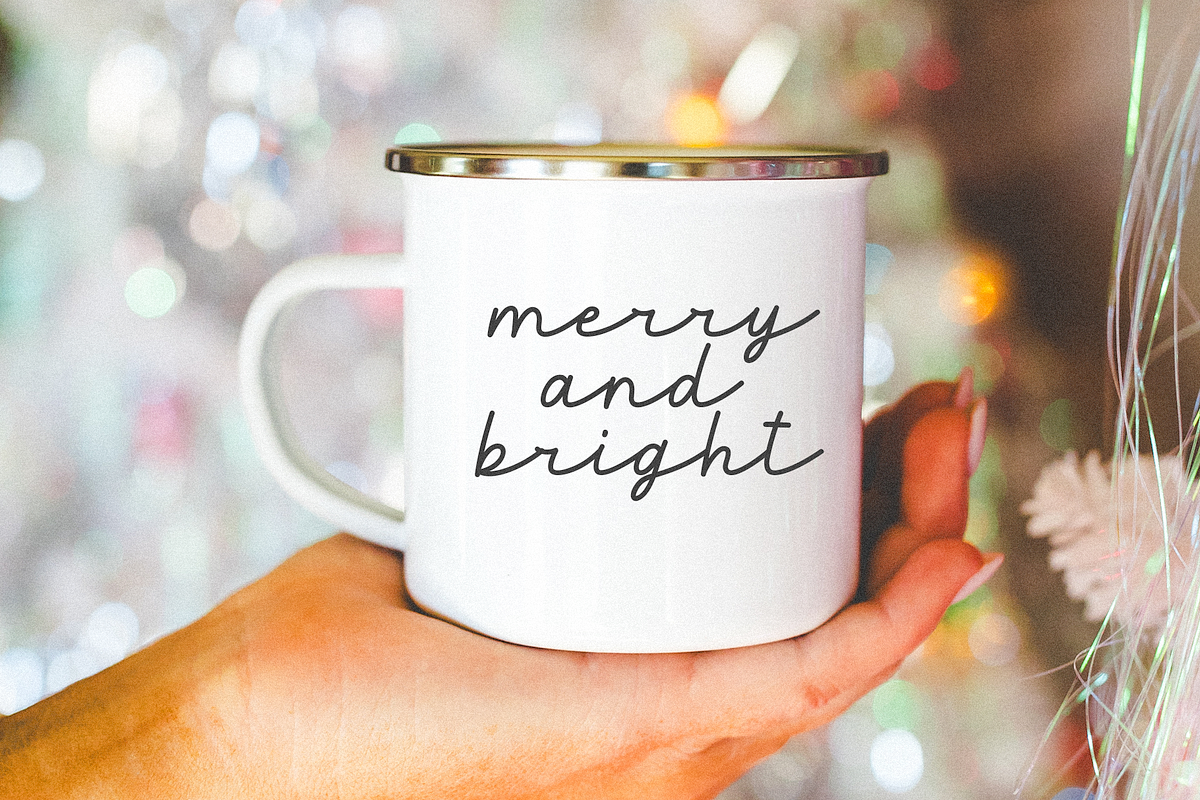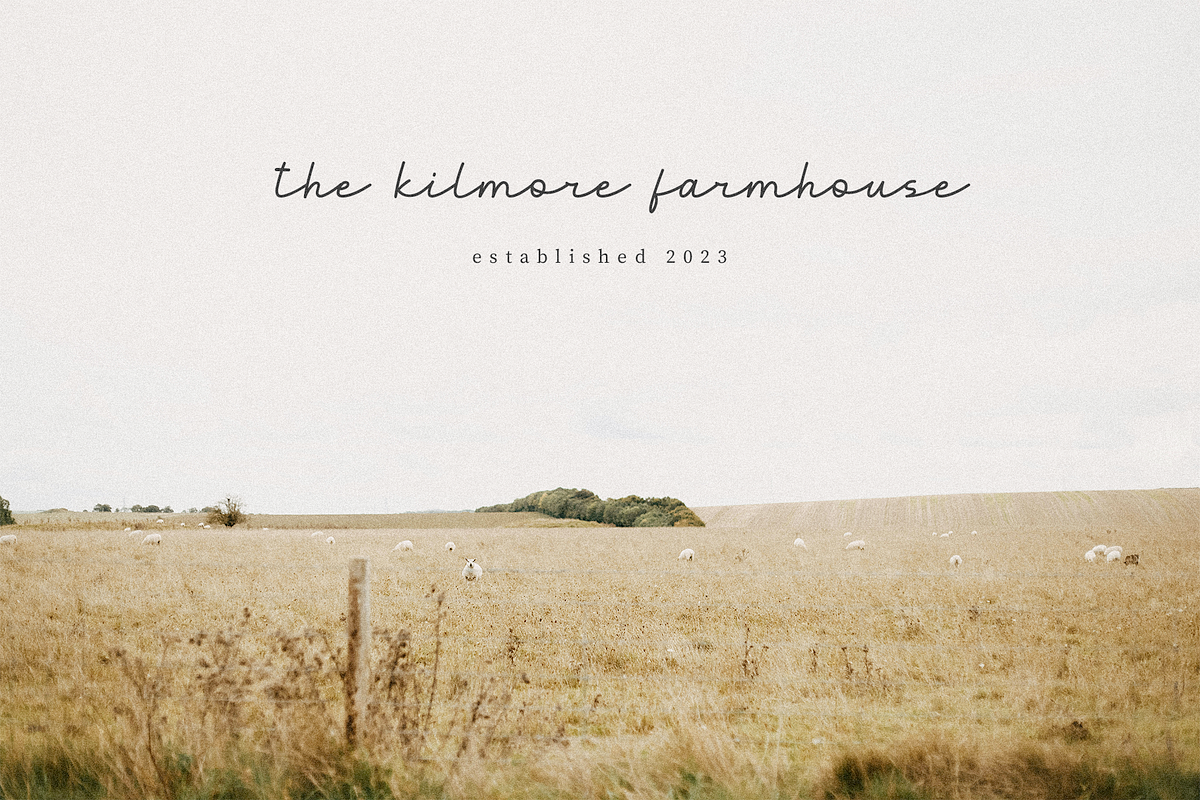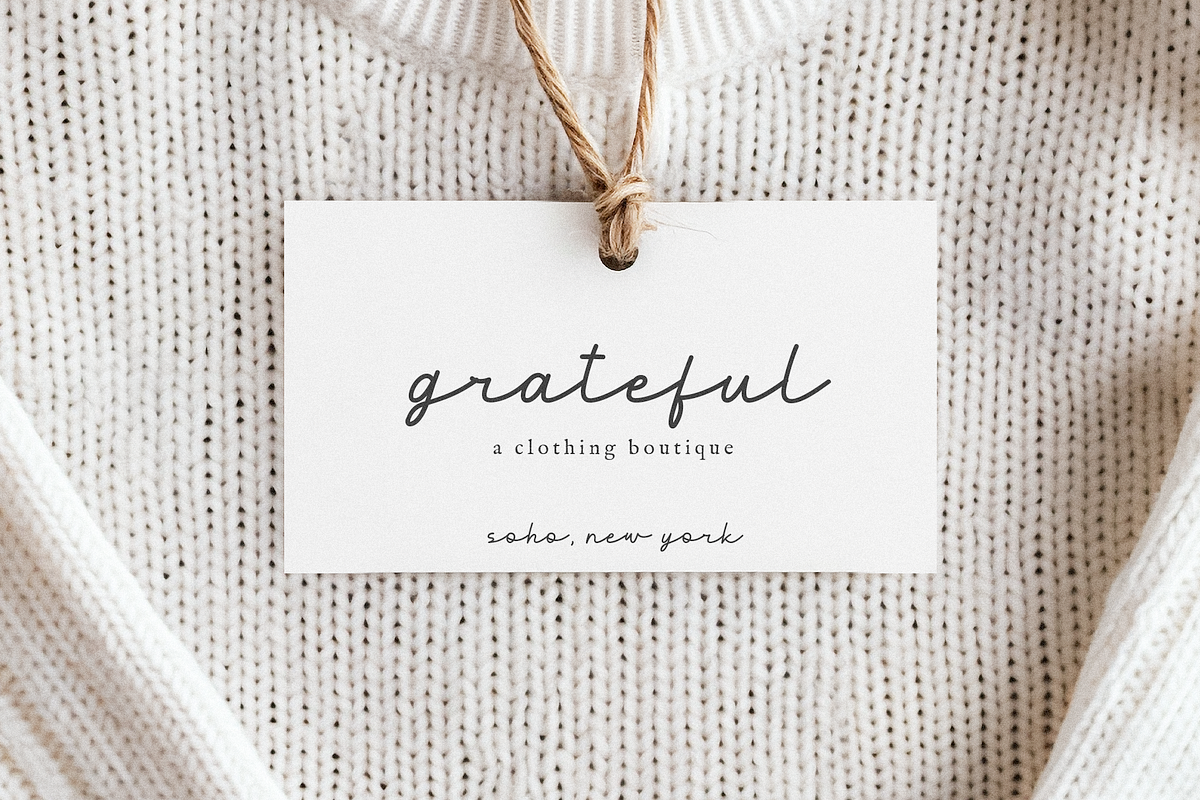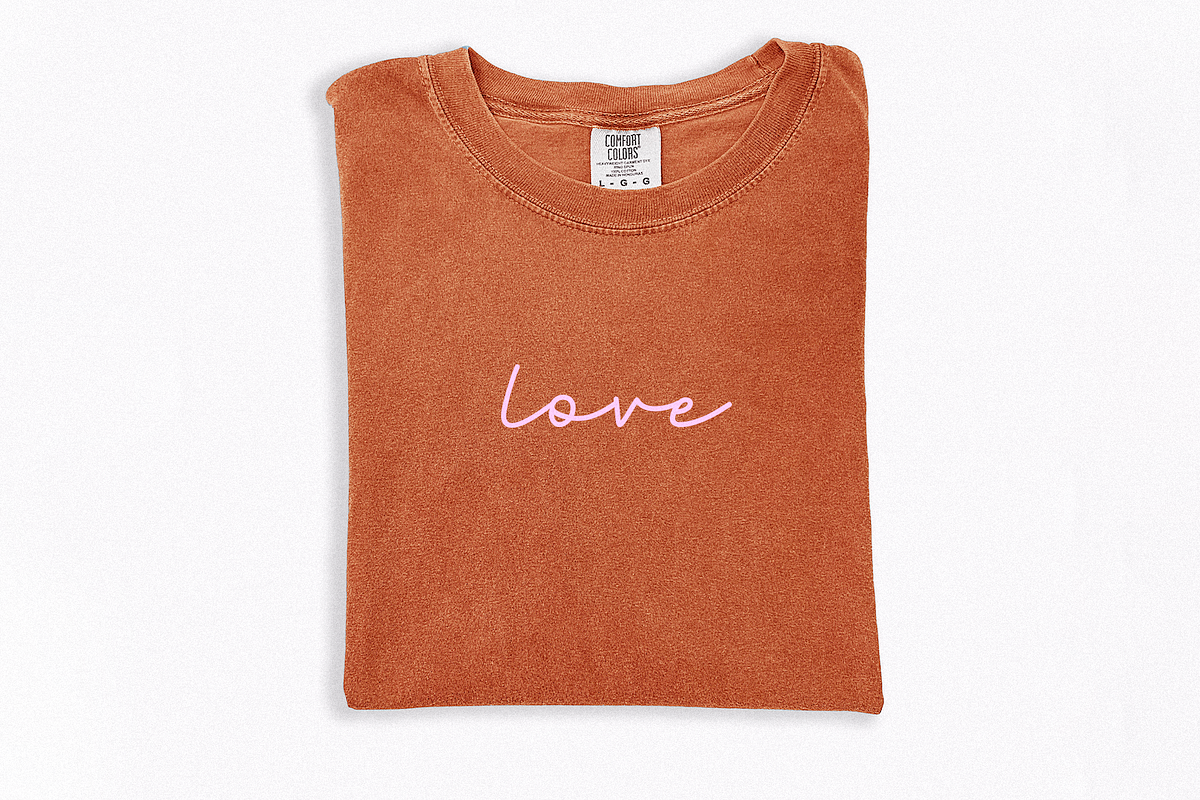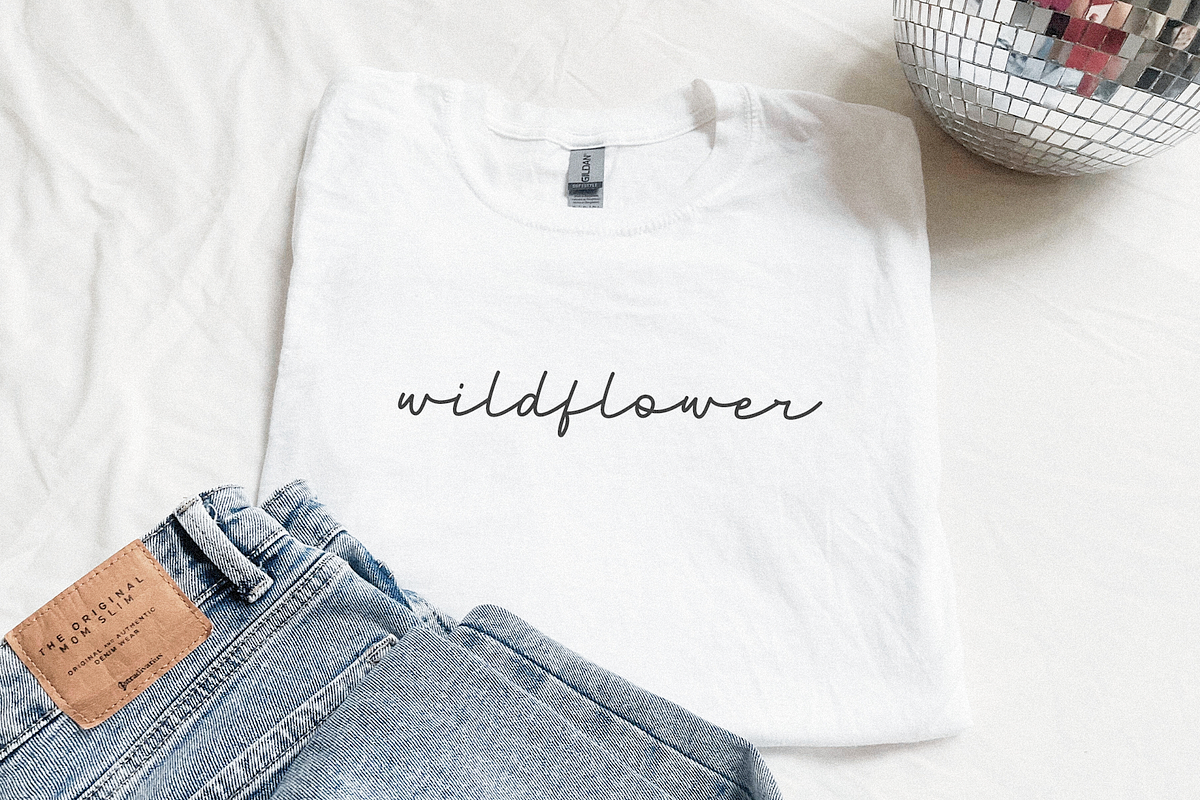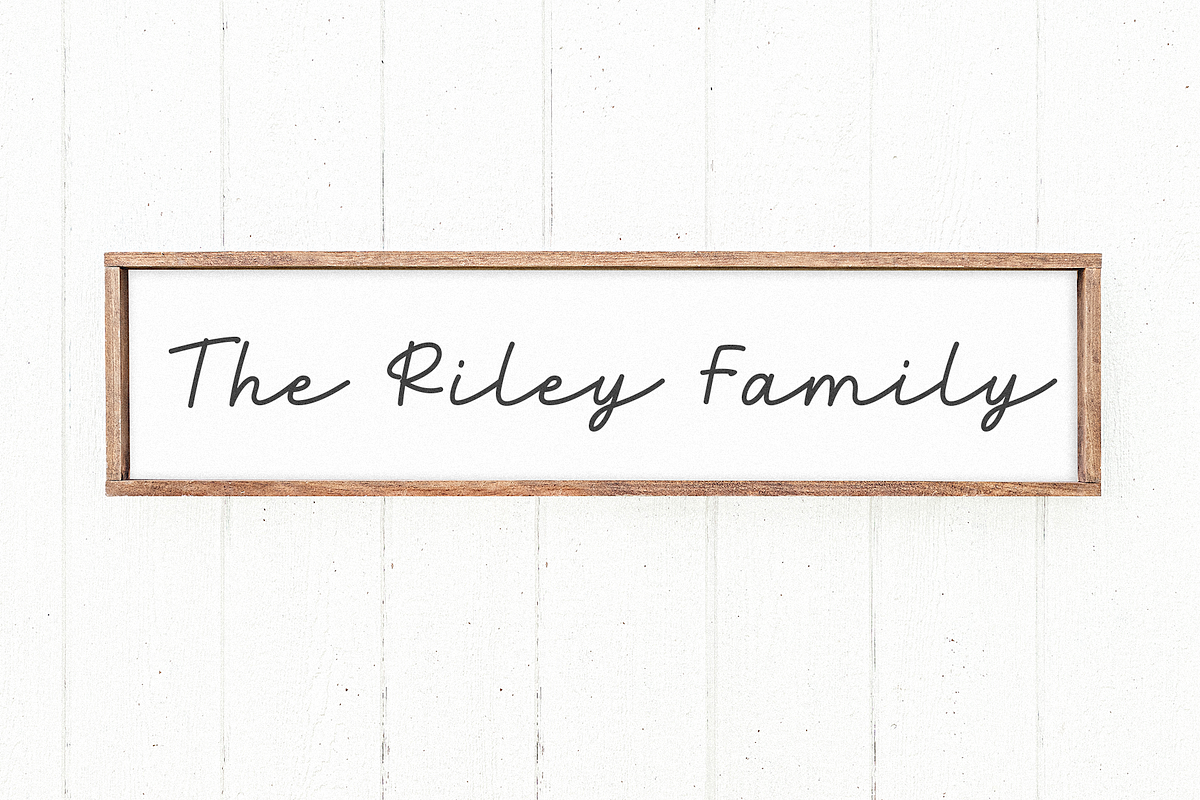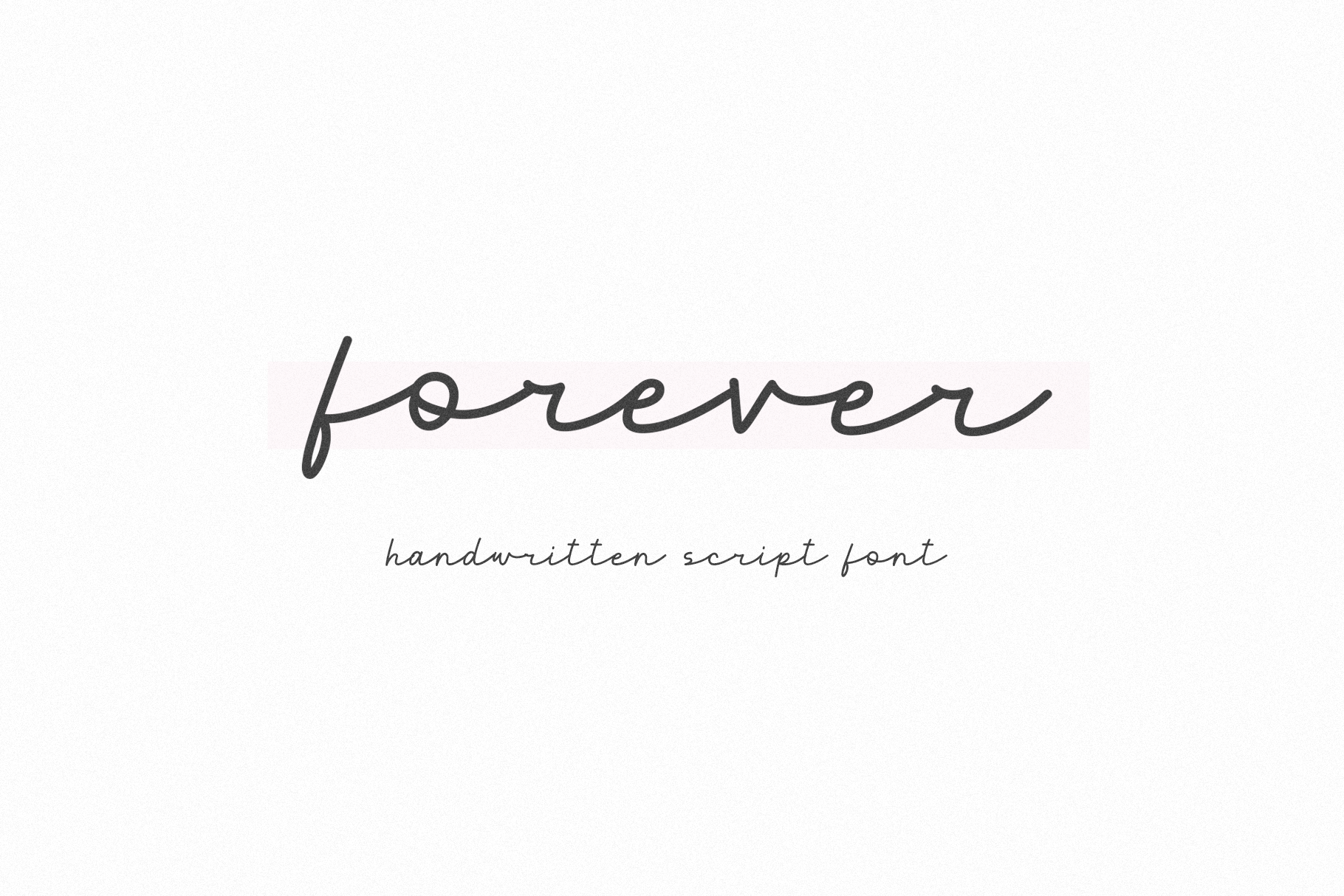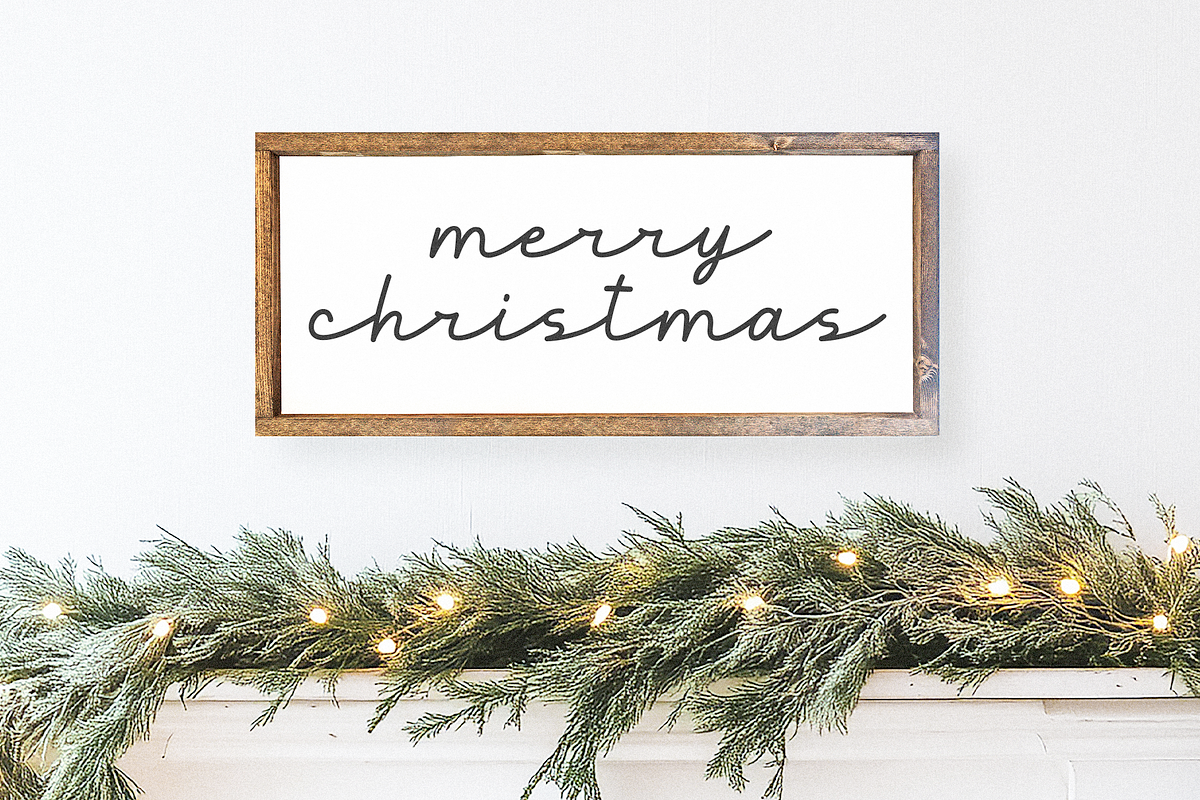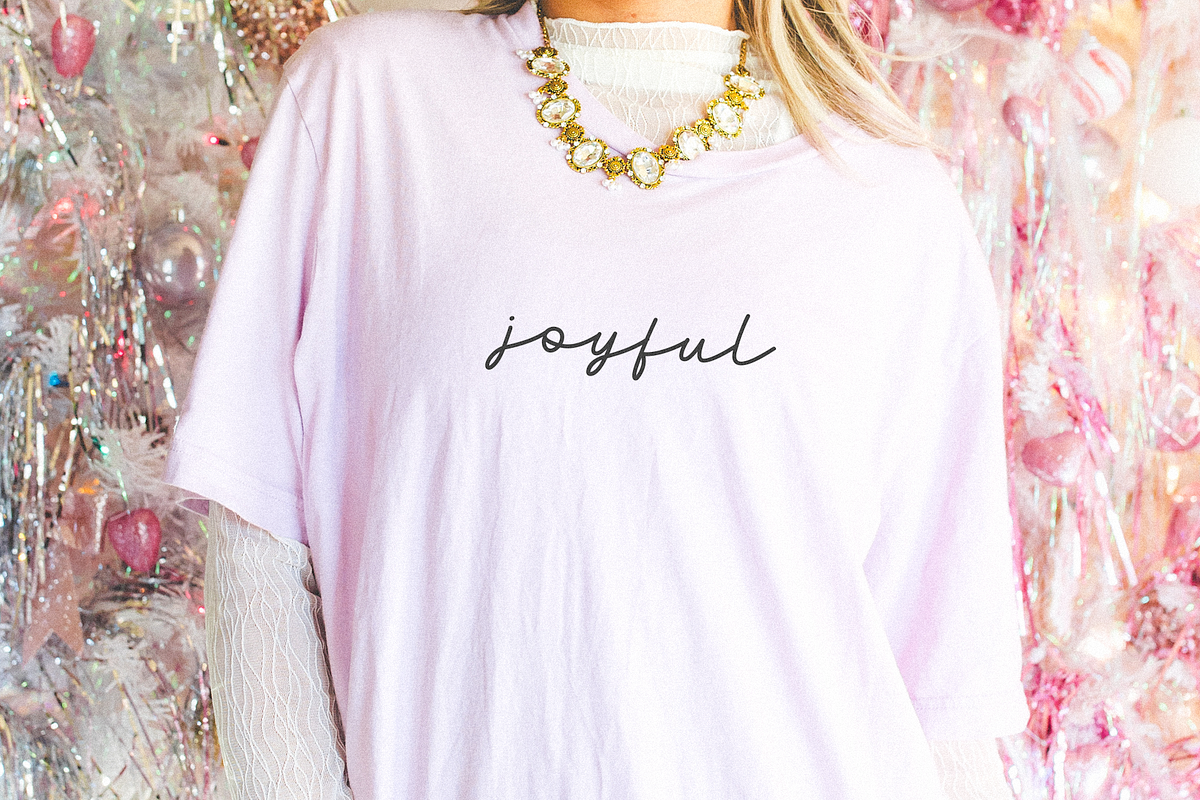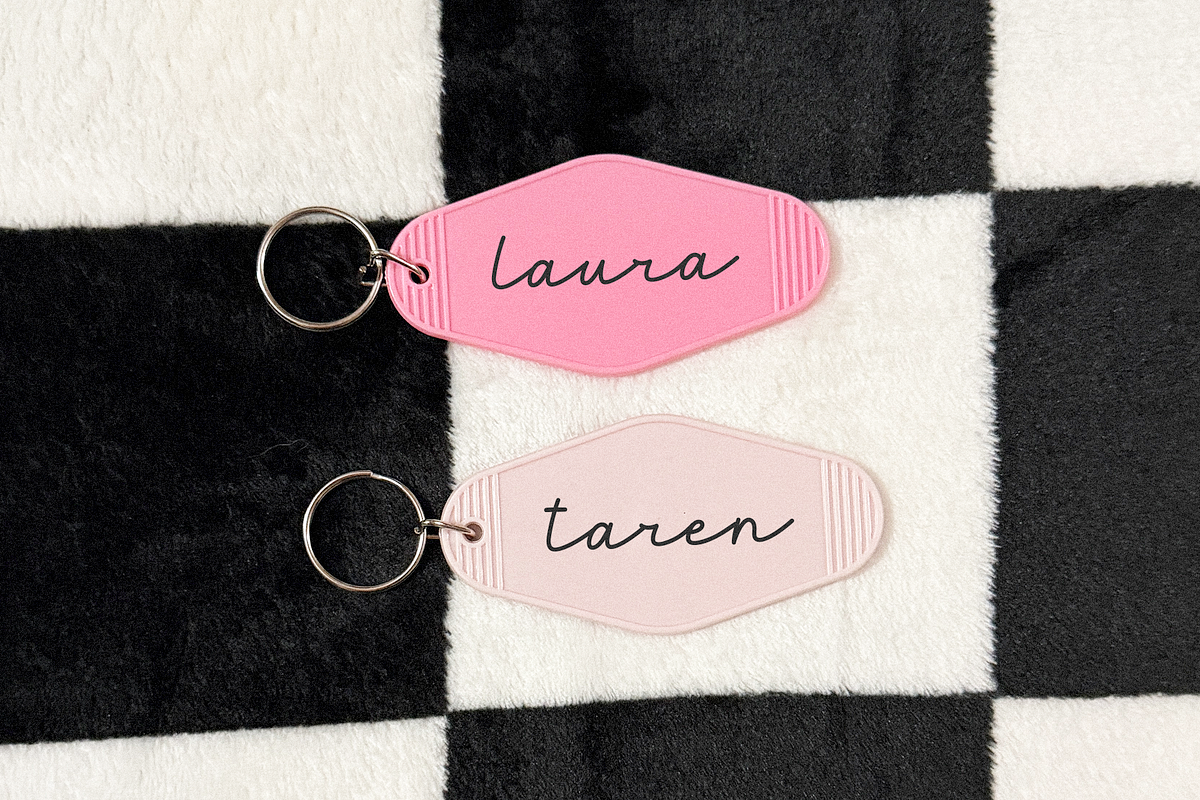
Forever | Handwritten Script Font
Forever is a handwritten script font.
This font is perfect for logos, branding, farmhouse designs, cricut projects, svg files, canva, goodnotes, stickers, mugs and more!